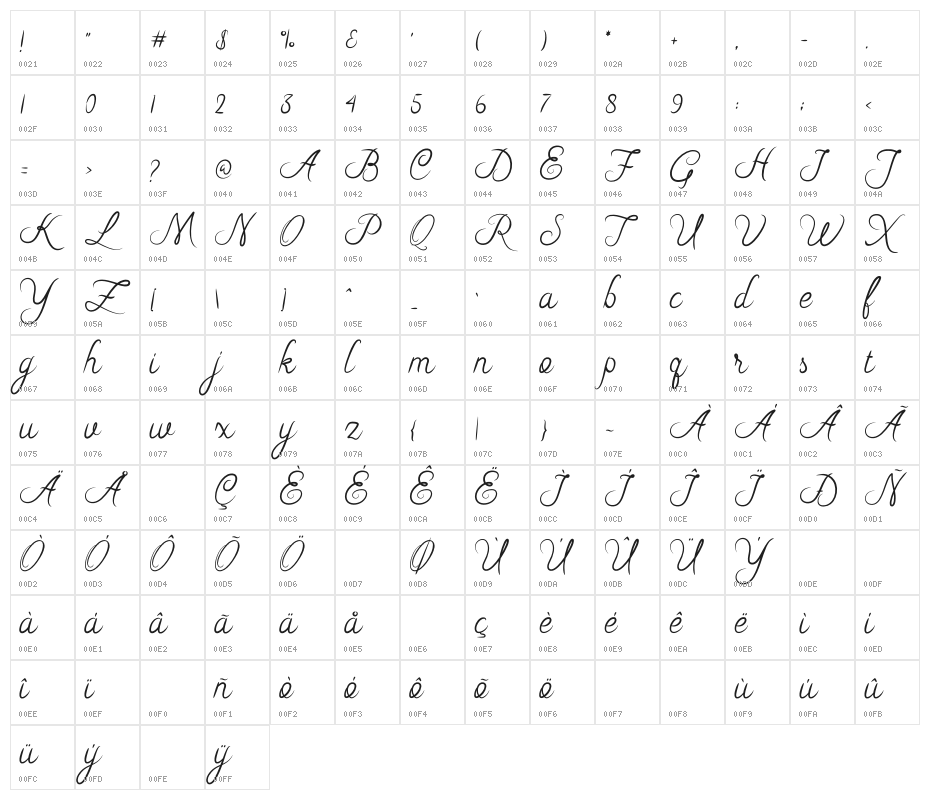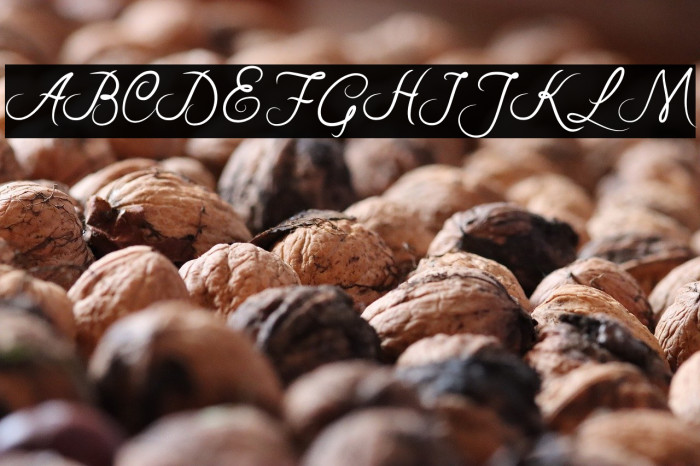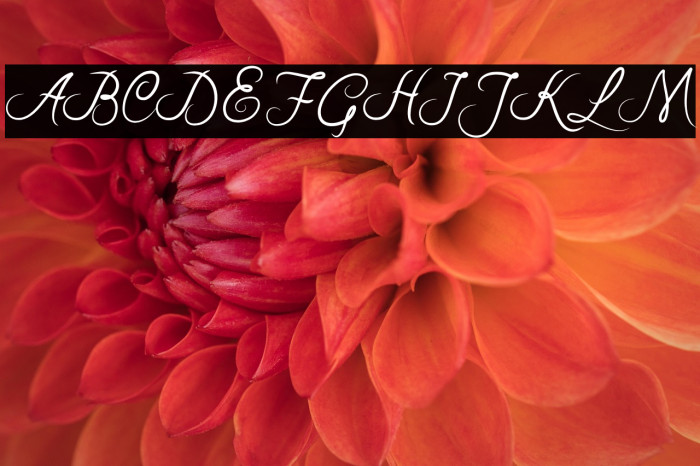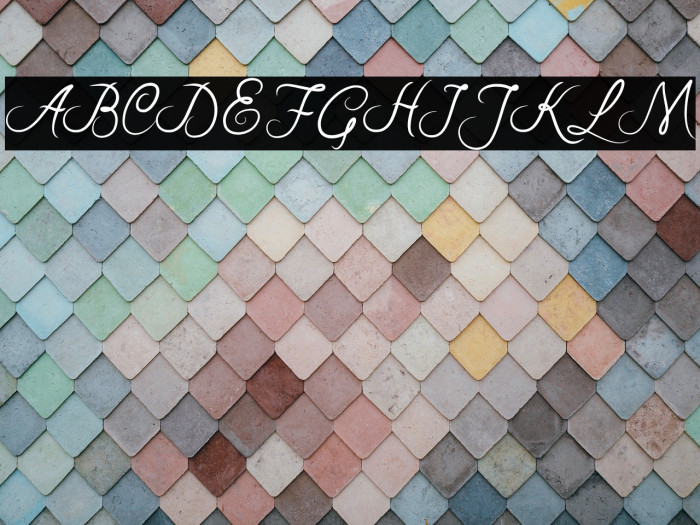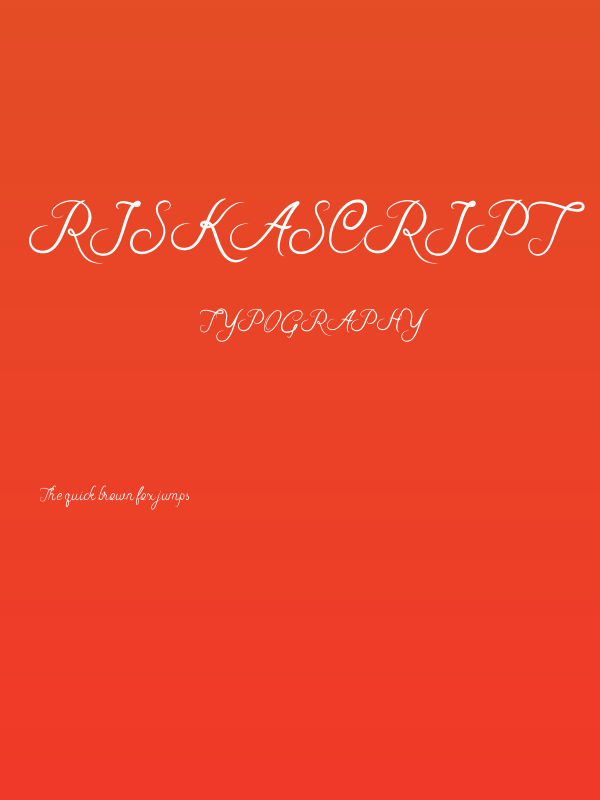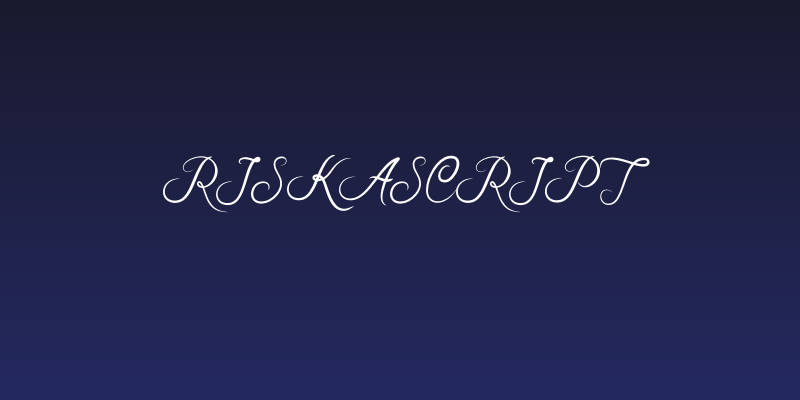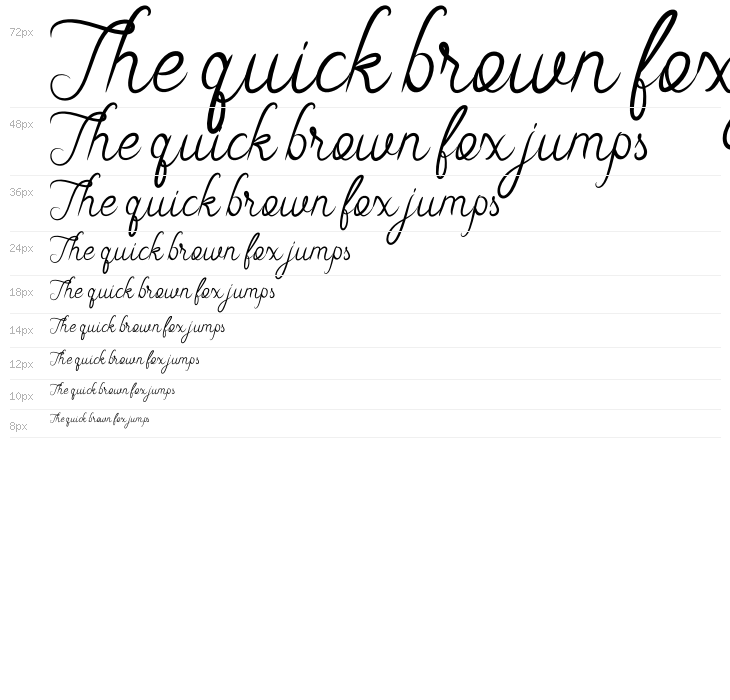
RiskaScript Font
RiskaScript Description
This elegant script font features fluid, cursive strokes that mimic the natural flow of handwriting. The uppercase letters are characterized by their graceful loops and swirls, adding a touch of sophistication and charm. The lowercase letters maintain a consistent style, with smooth connections between each character, enhancing readability while preserving the script's artistic flair. Numbers and special characters are designed to complement the overall aesthetic, ensuring a cohesive look across all text elements. This font is ideal for projects that require a personal, elegant touch, such as invitations, greeting cards, and branding materials.
| Overall Style | Elegant, Artistic |
| Use Case | Invitations, Greeting cards, Branding |
| Proposed Projects | Ideal for wedding invitations, greeting cards, personal branding, and elegant logos. |